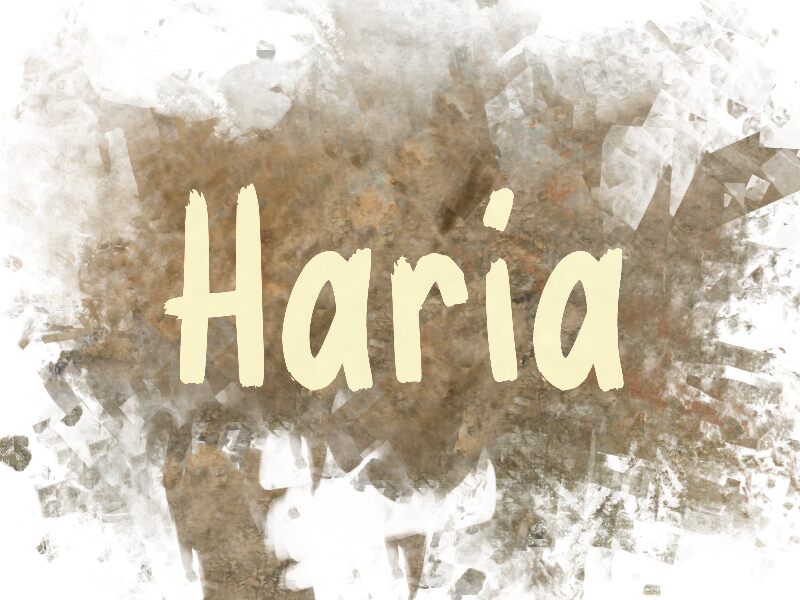
Haria
Haria font is designed by wep as a hand-drawn, playful font with an energetic and artistic visual style. The casual and informal handwritten letters together with the rough texture can give any design project a laid-back yet modern feel. This free font has its lines and curves condensed into close spacing which makes it perfect for typographic compositions.
Use Haria in all your creative projects that would require a relaxed yet professional hand-brushed typeface, from posters to packaging designs, advertisements, signboards, website pages, online branding identity design jobs, etc.